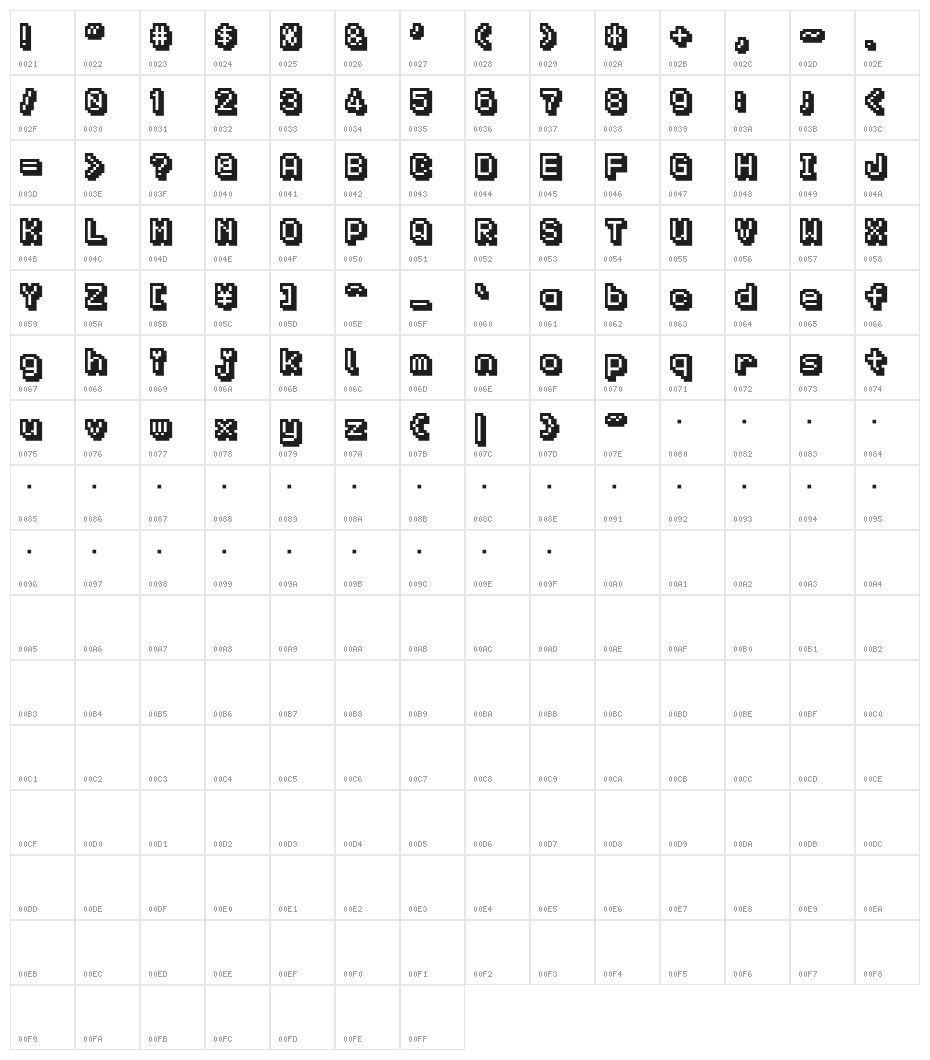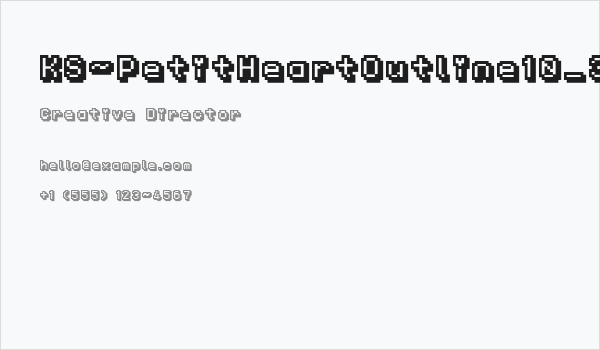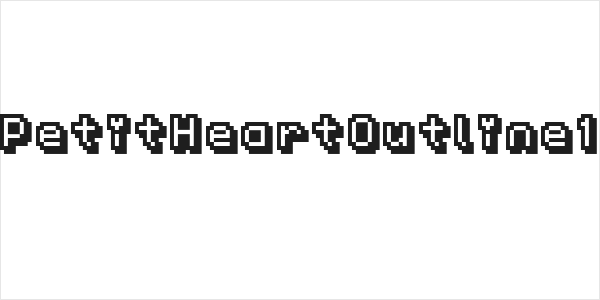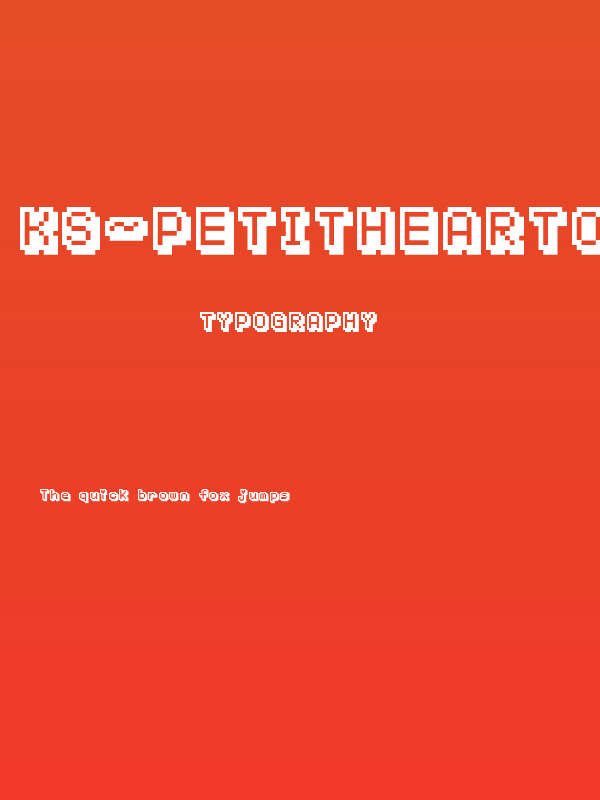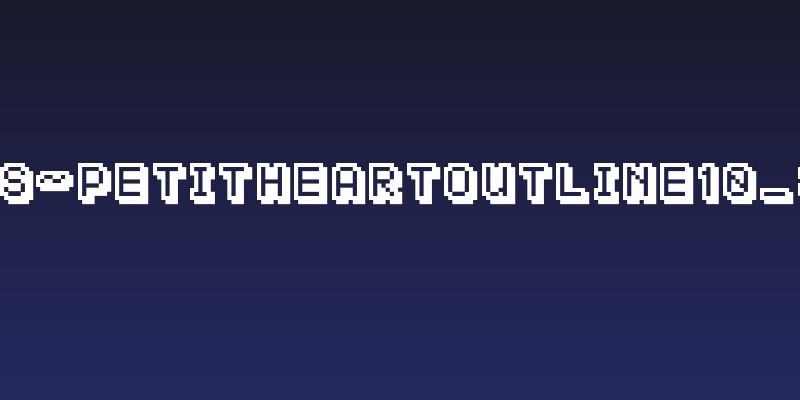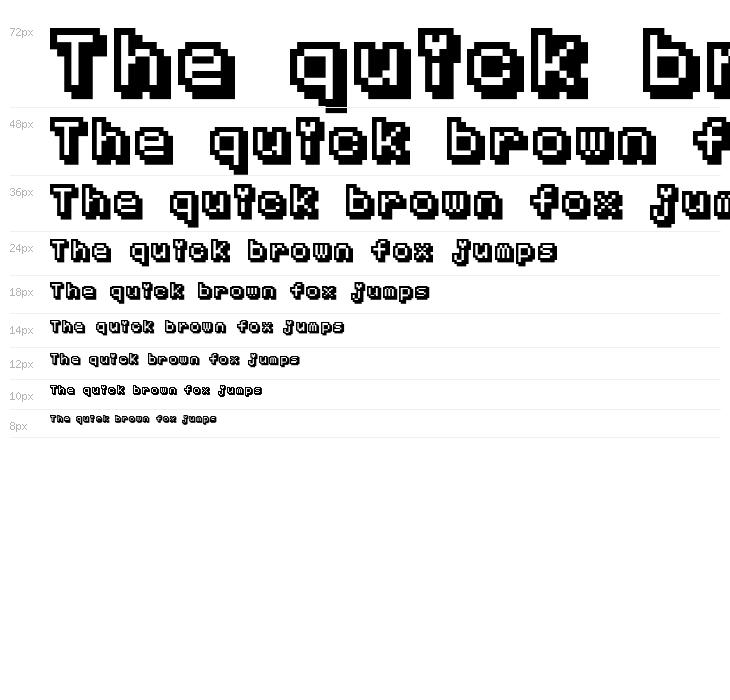
KS-PetitHeartOutline10_3 Font
KS-PetitHeartOutline10_3 Description
This font features a playful, pixelated design that evokes a retro, digital aesthetic. Each character is outlined, giving it a distinct, bold appearance that stands out against backgrounds. The blocky, geometric shapes are reminiscent of early video game graphics, making it ideal for projects that aim to capture a nostalgic or tech-inspired vibe. The uppercase and lowercase letters maintain a consistent style, with uniform stroke widths and clear outlines. Numbers and special characters are designed with the same pixelated charm, ensuring a cohesive look across all text elements.
Overall StyleRetro, Digital
Proposed ProjectsIdeal for video game designs, retro-themed posters, digital art projects, and tech-related branding.